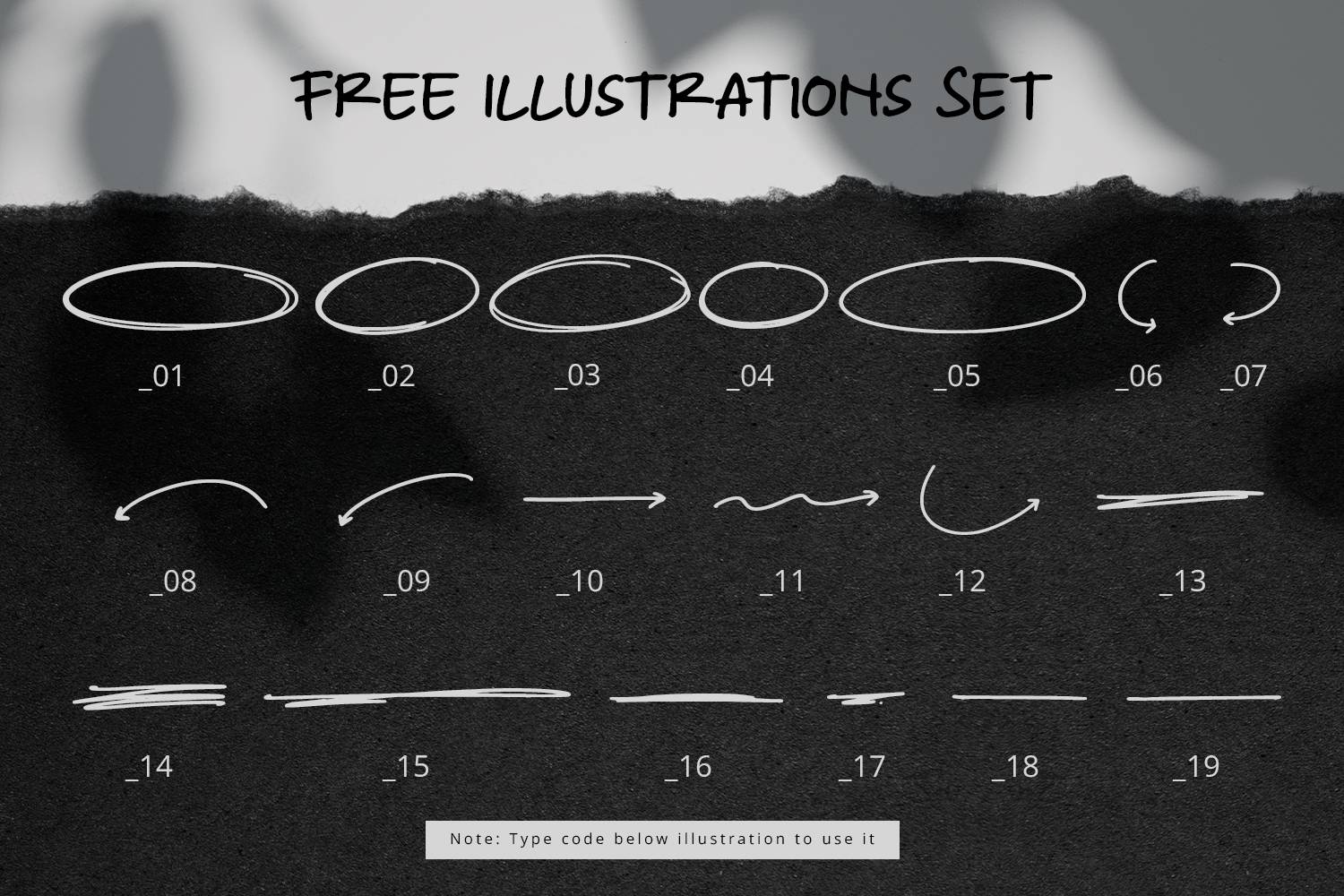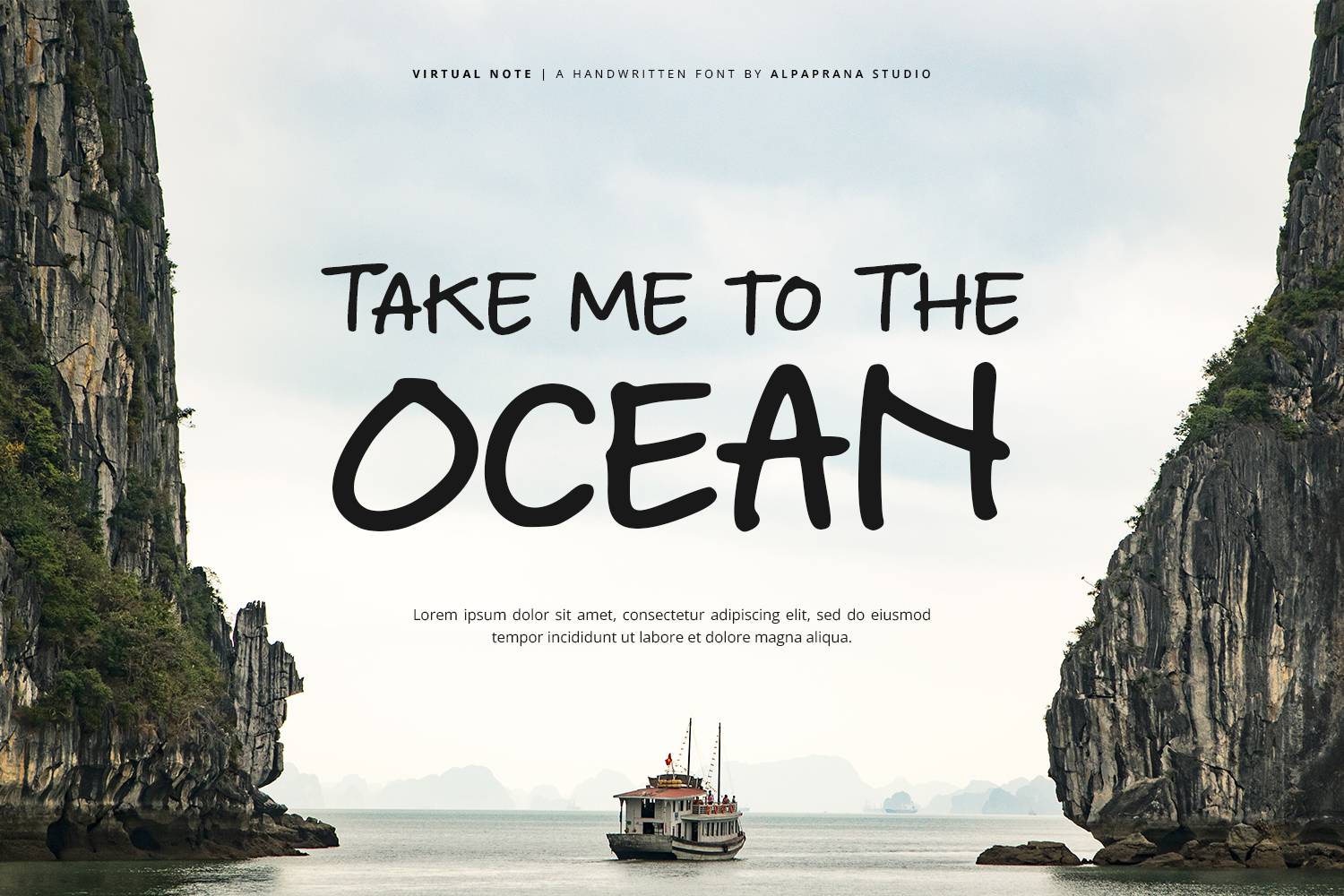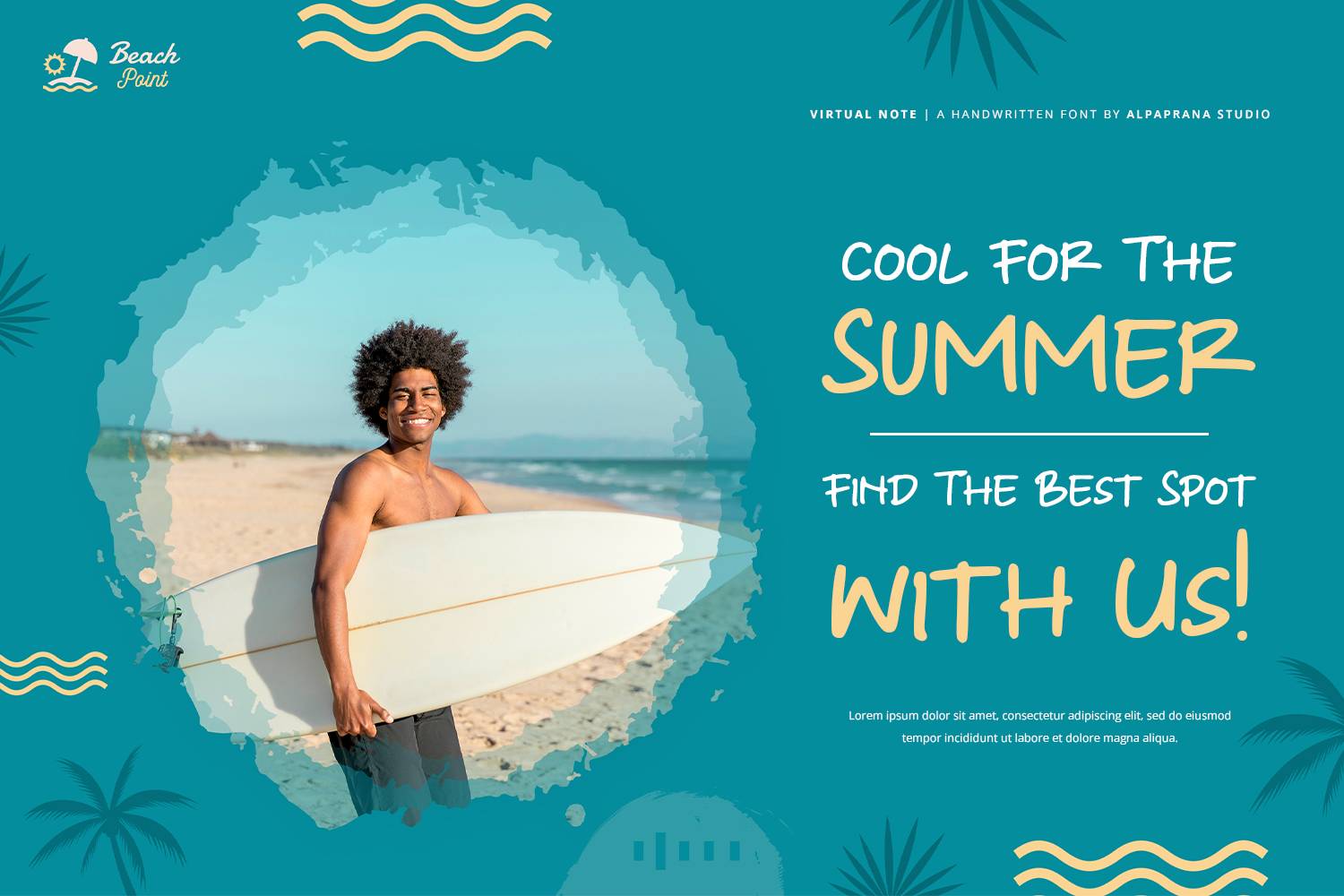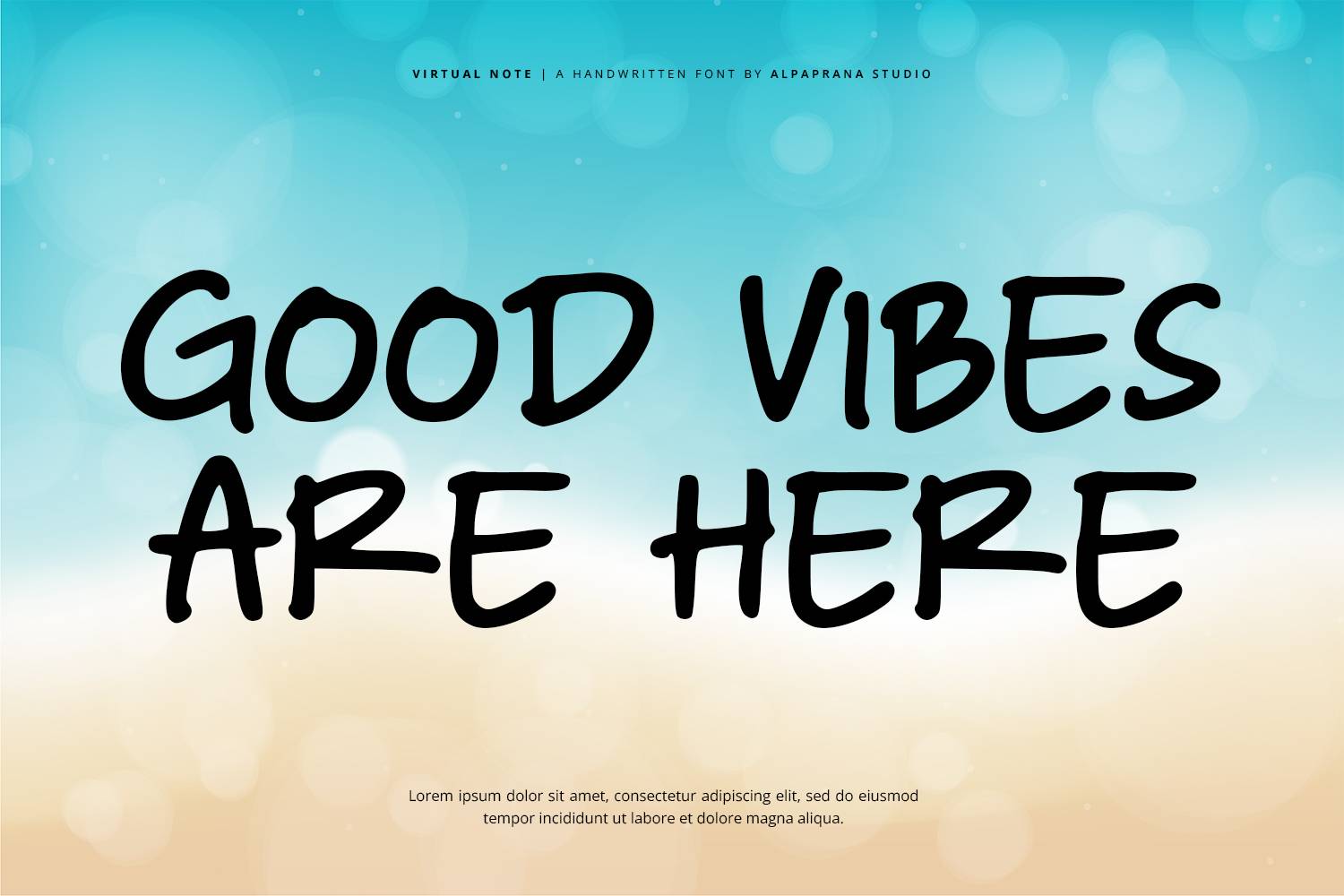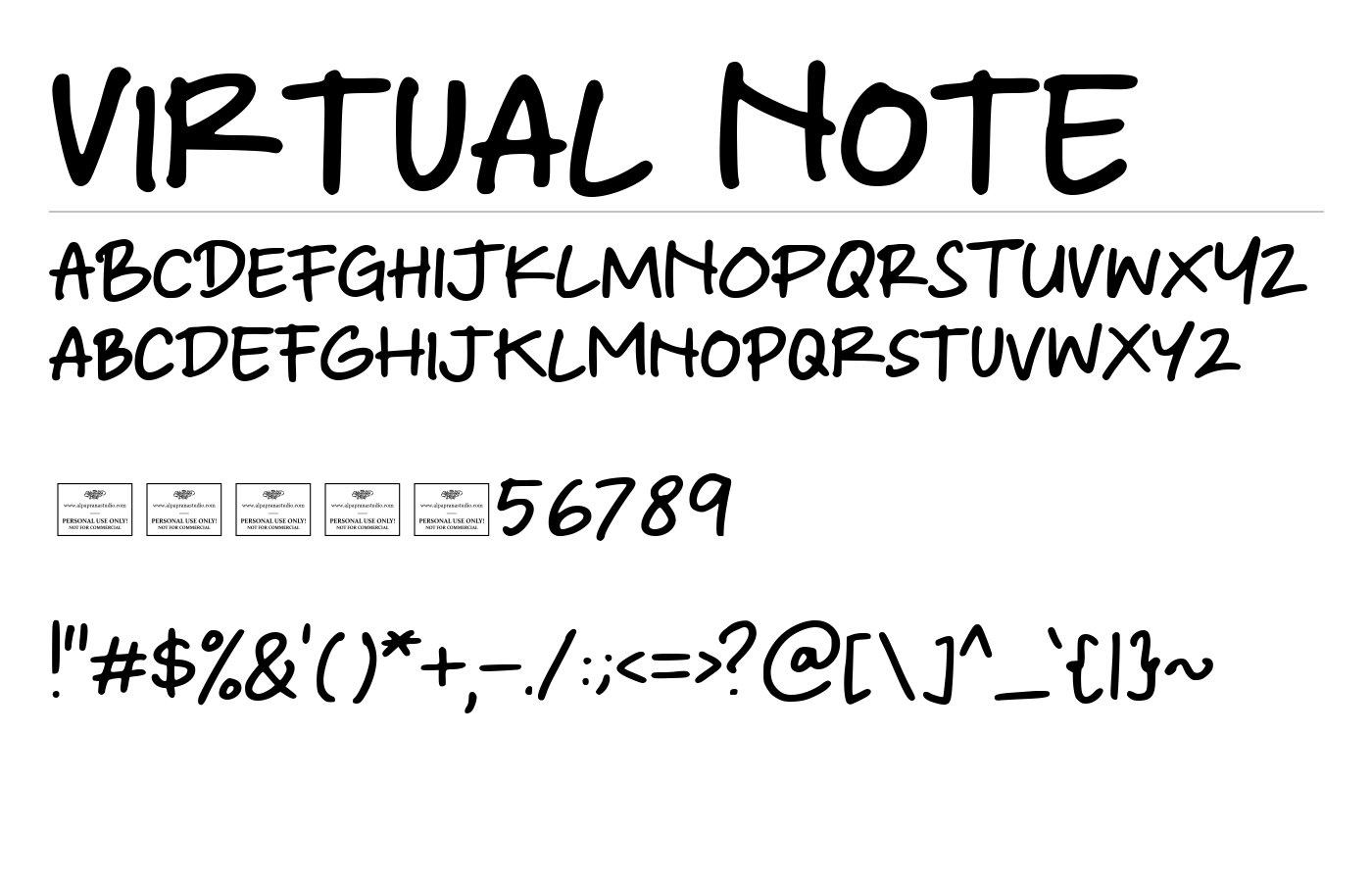
Virtual Note is a playful, casual handwritten sans-serif font with a friendly and informal vibe. It features a medium weight with slightly uneven strokes that mimic natural handwriting, making it perfect for personal notes, creative projects, and fun branding that seeks a warm, approachable feel. This font works well in headlines, posters, and digital media where a relaxed and personal touch is desired.
Virtual Note Font
About Virtual Note Font